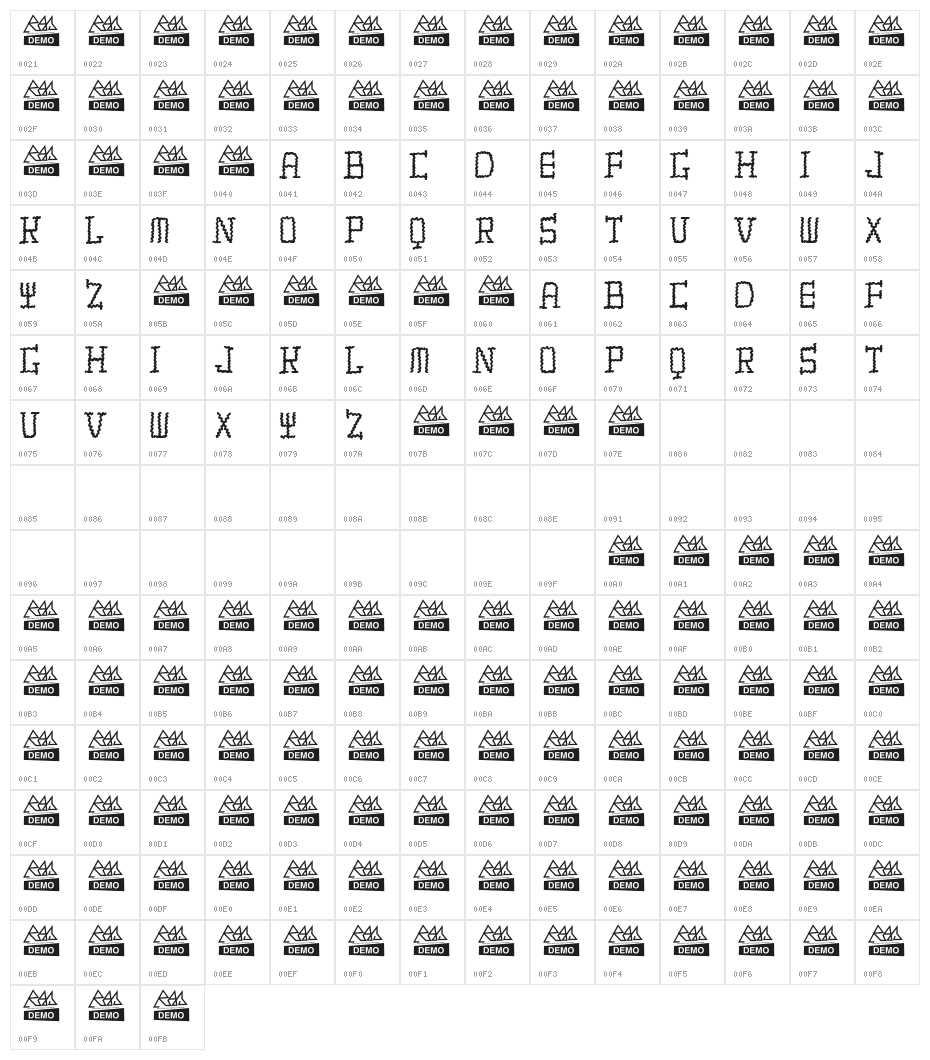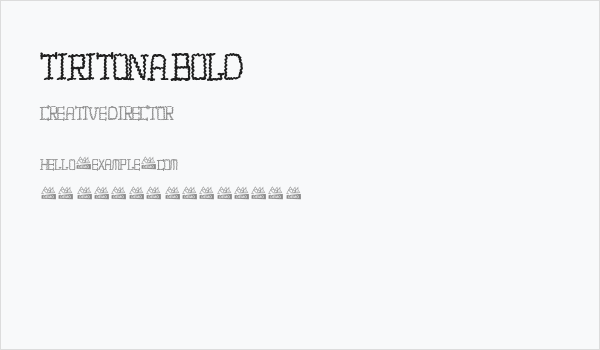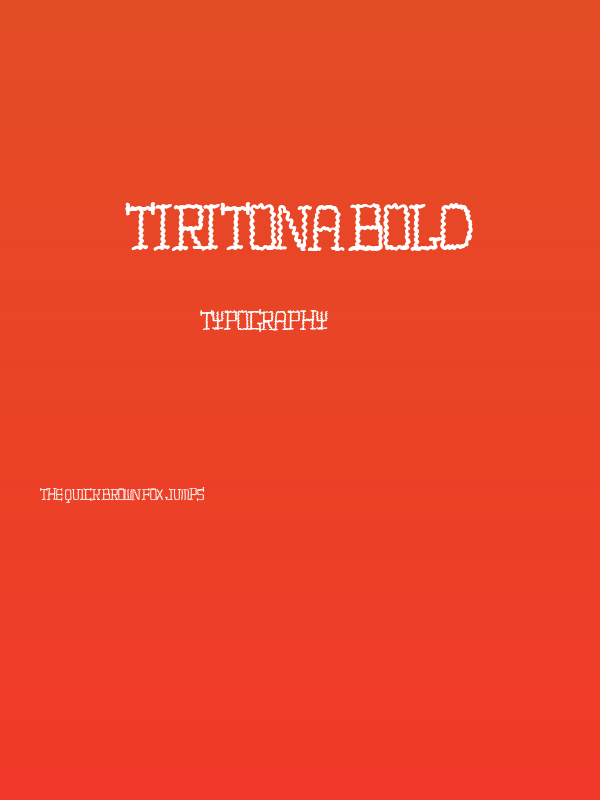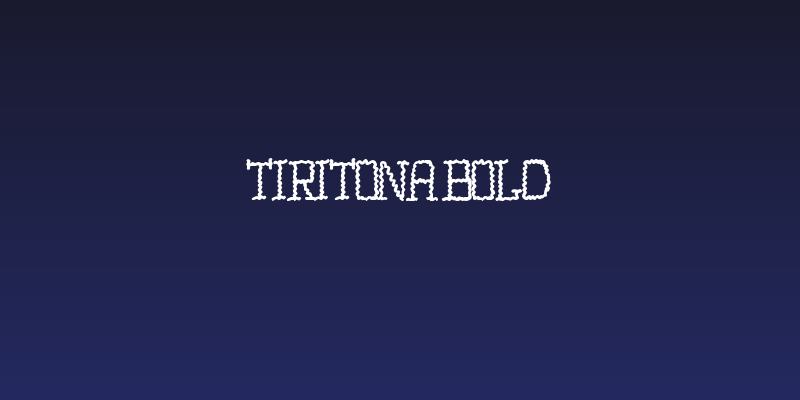
TIRITONA BOLD Font
TIRITONA BOLD Description
This font features a unique, decorative style with a bold and playful appearance. Each character is crafted with a series of interconnected, rounded shapes that create a textured, almost beaded effect. The uppercase letters are consistent in height, while the lowercase letters maintain a similar style, offering a cohesive look across the alphabet. The numbers and special characters follow the same design principles, ensuring uniformity throughout the typeface. This font's distinct style makes it stand out, ideal for projects that require a touch of creativity and flair.
| Proposed Projects | Ideal for creative projects such as posters, logos, and event invitations where a unique and eye-catching typeface is desired. |